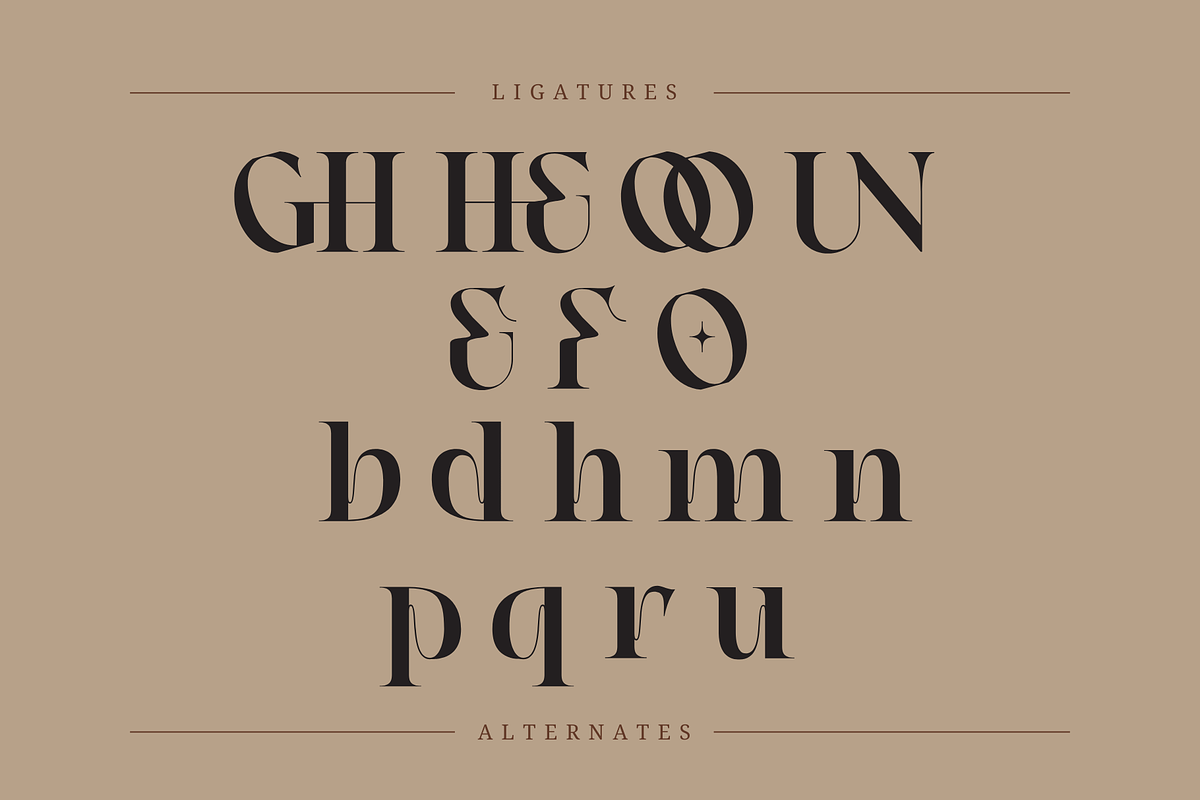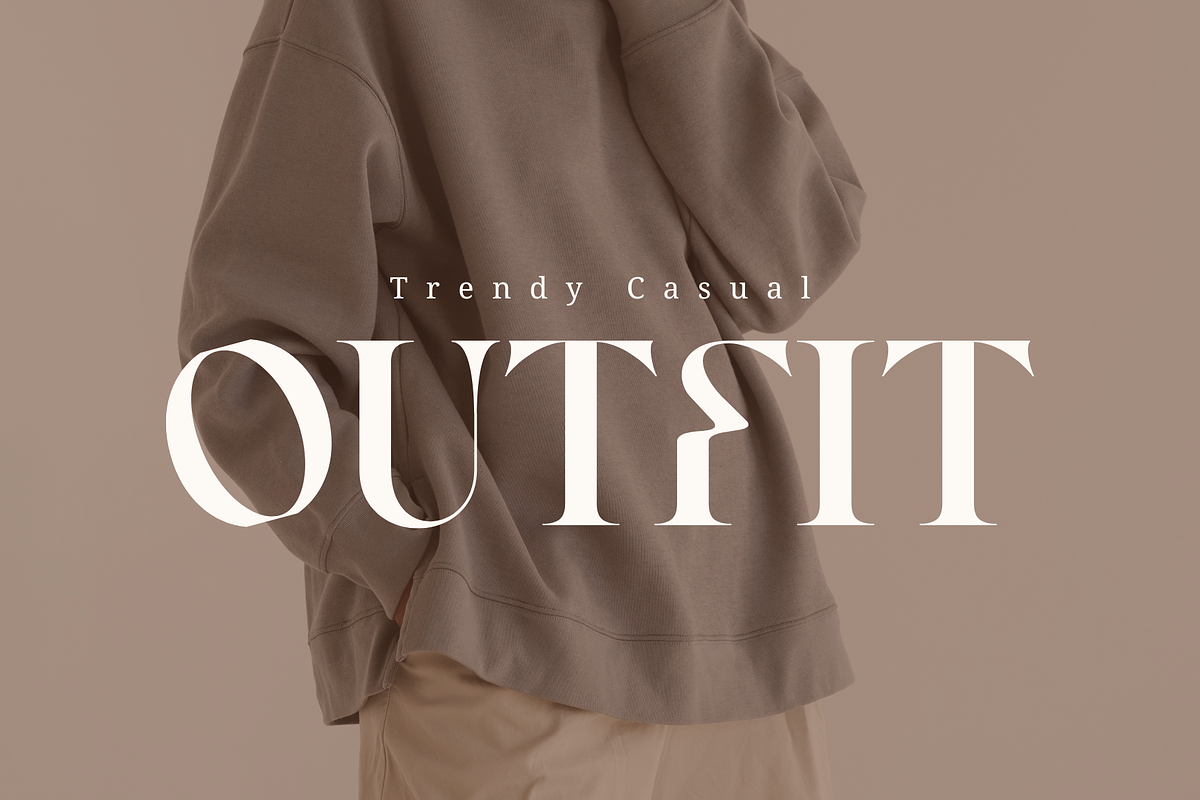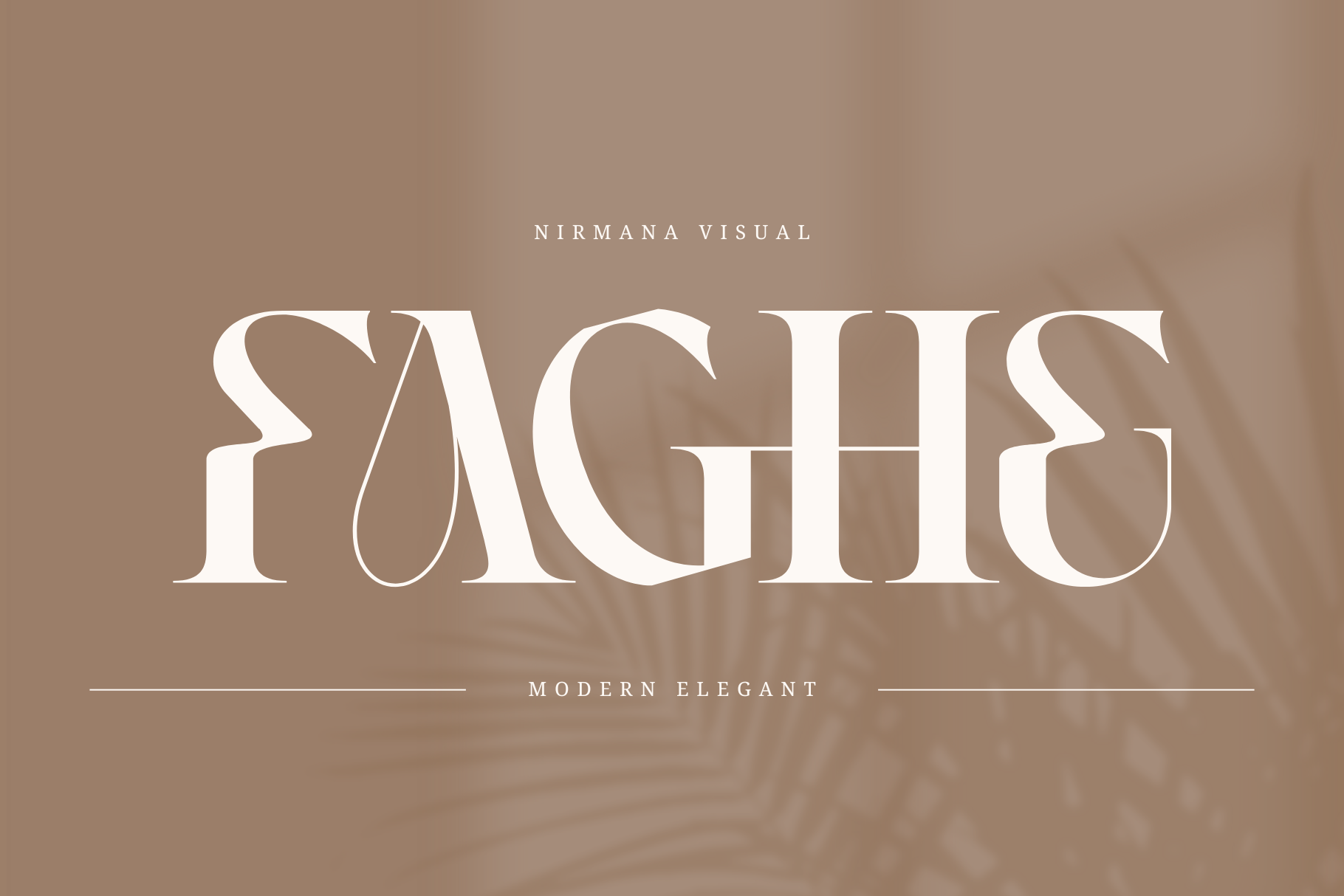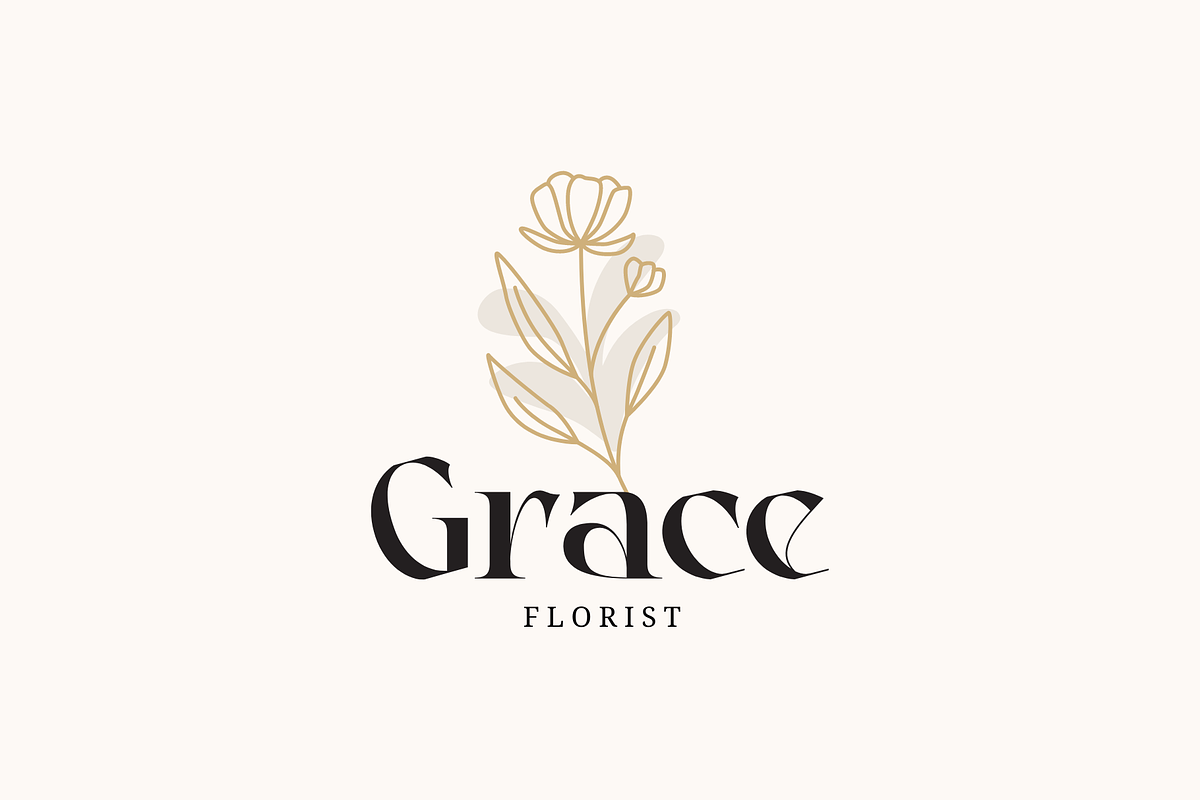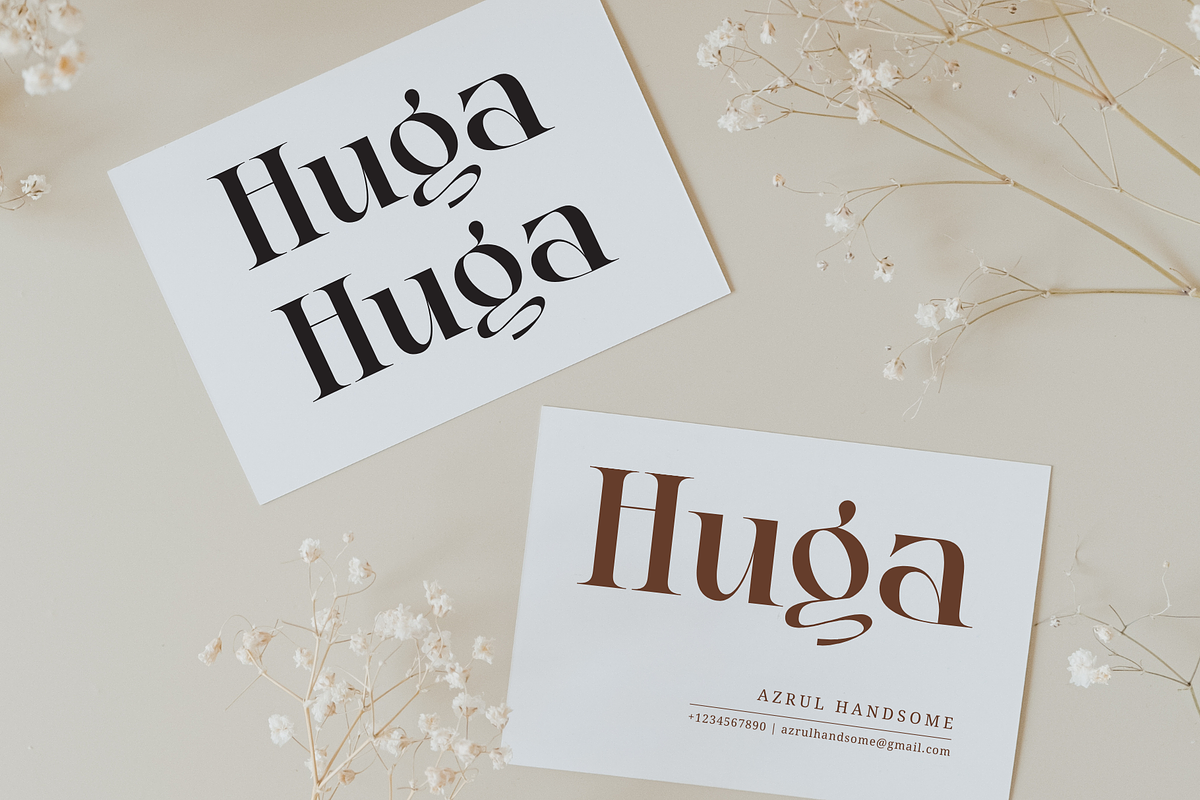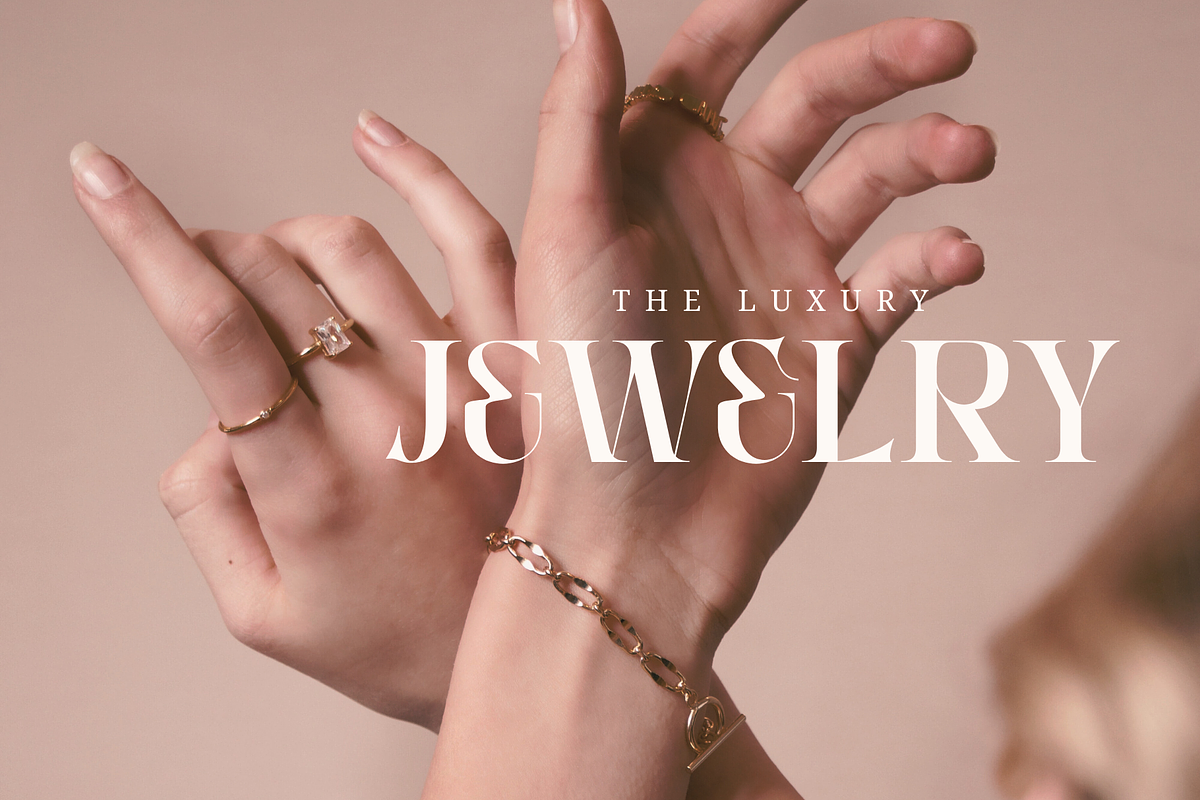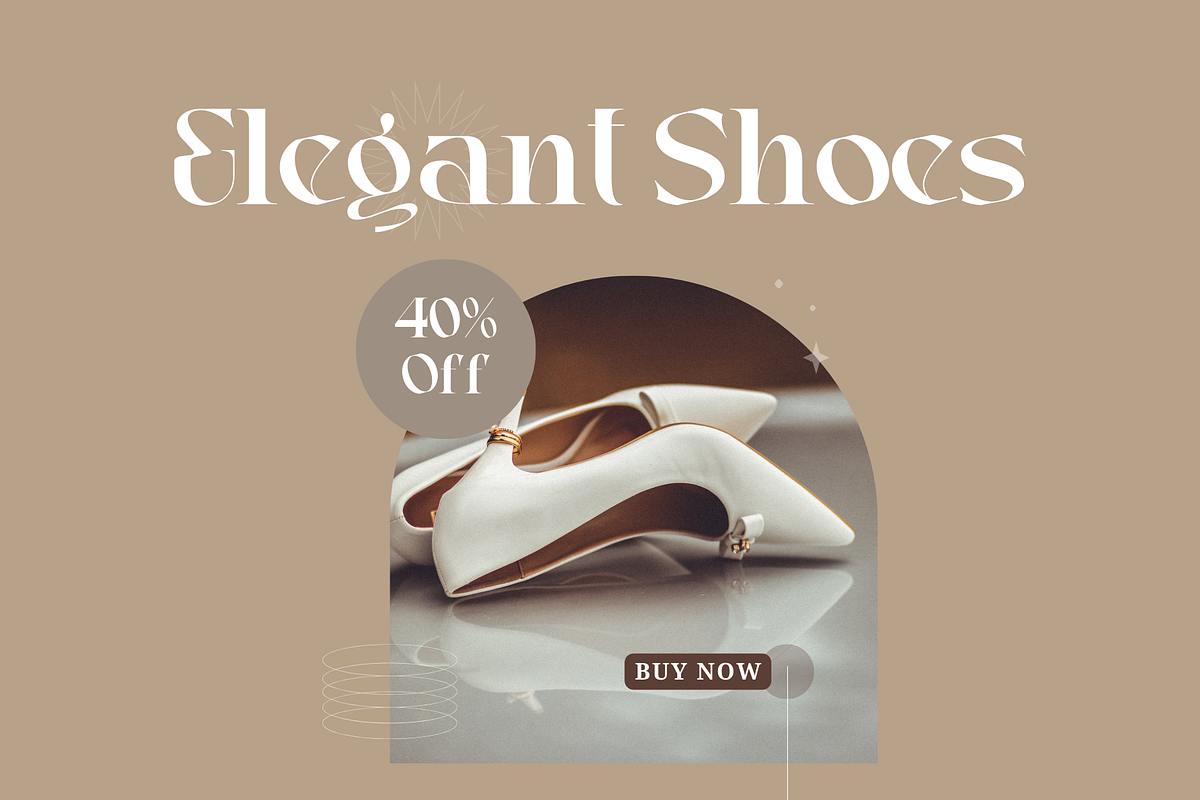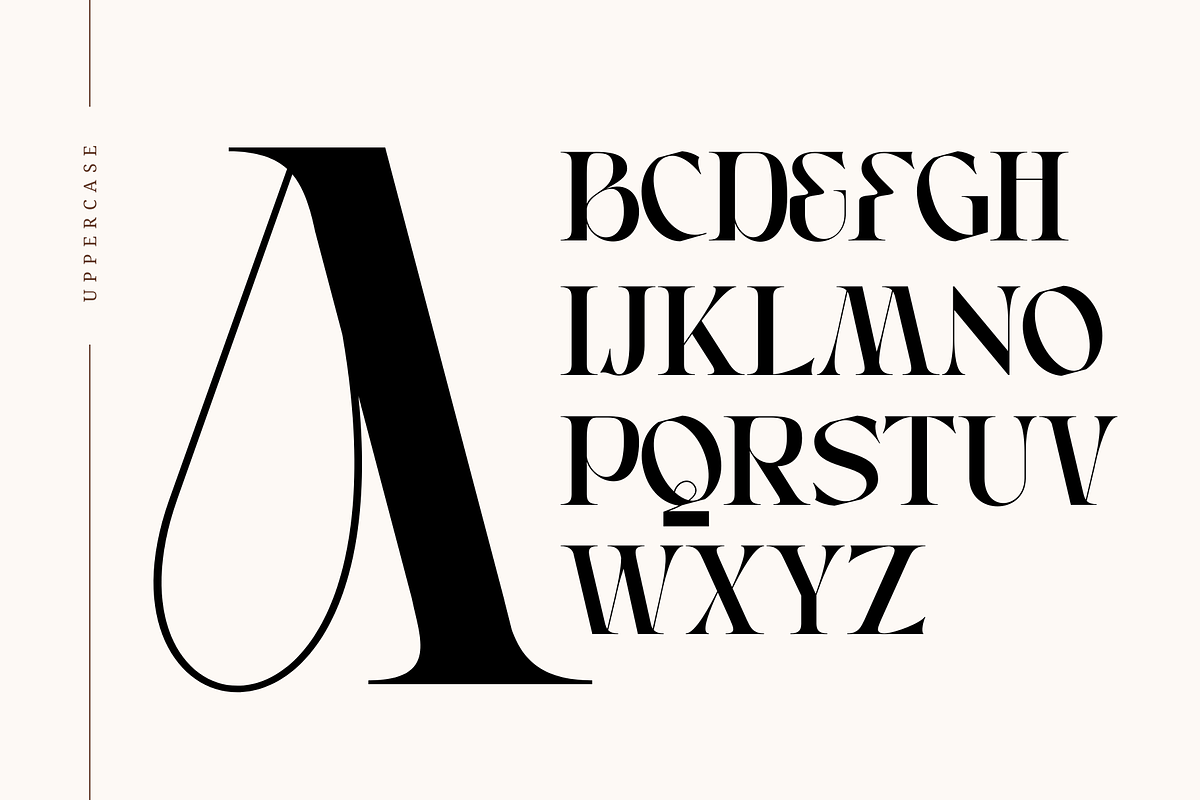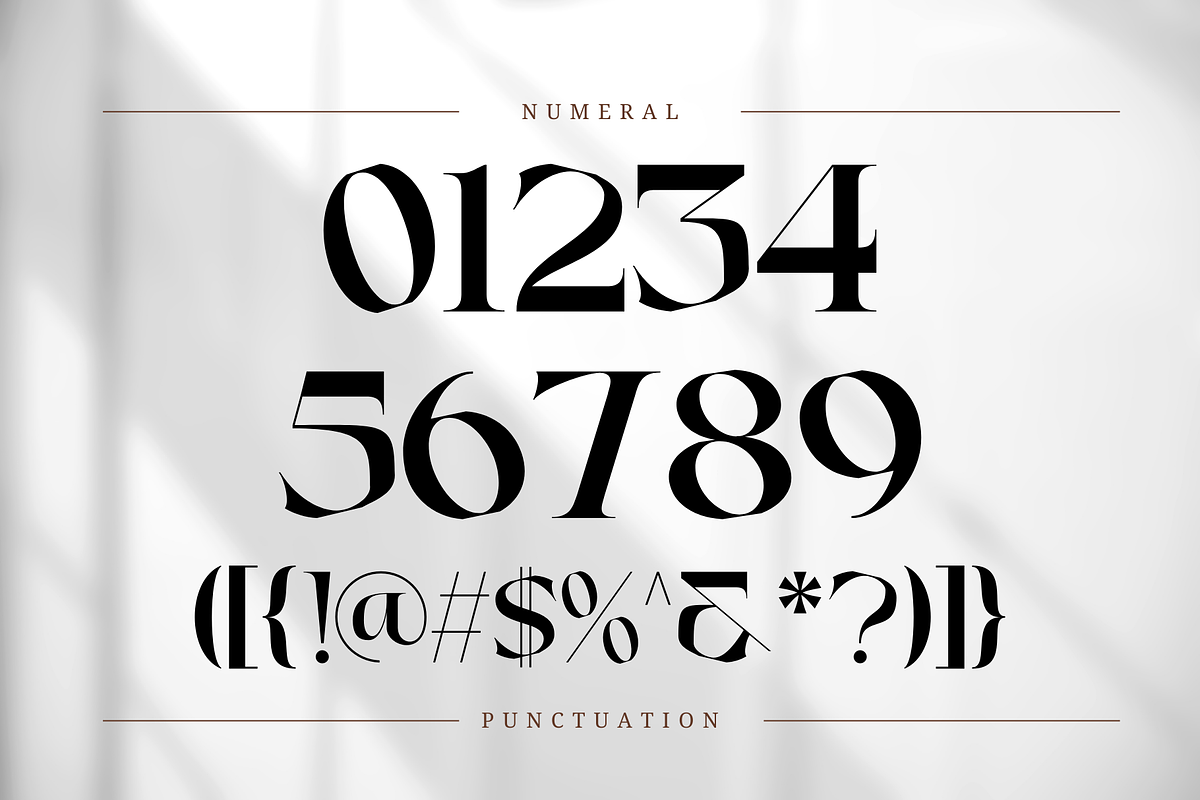
Faghe Modern - Elegant Logo Font
Faghe Modern Font offers beautiful typographic harmony for a diversity of design projects, including logos & branding, social media posts, advertisements & product designs.